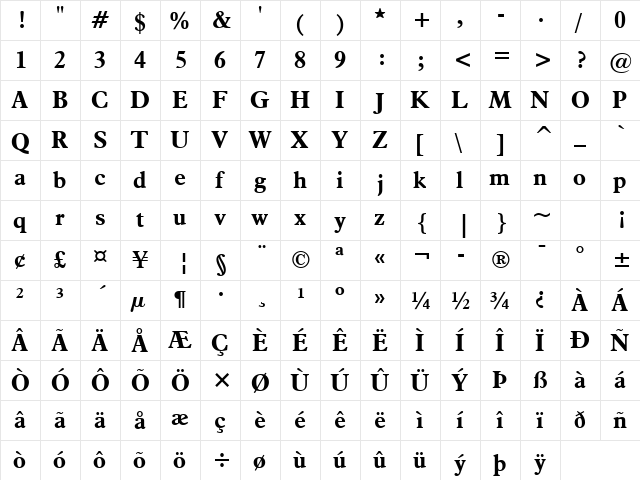
Aldine721 BT Bold
Design Context for Aldine721 BT Typeface
Aldine721 BT is a composed and adaptable typeface that performs quietly and consistently across a wide range of design contexts. Its bold stroke weight gives it real presence on the page.